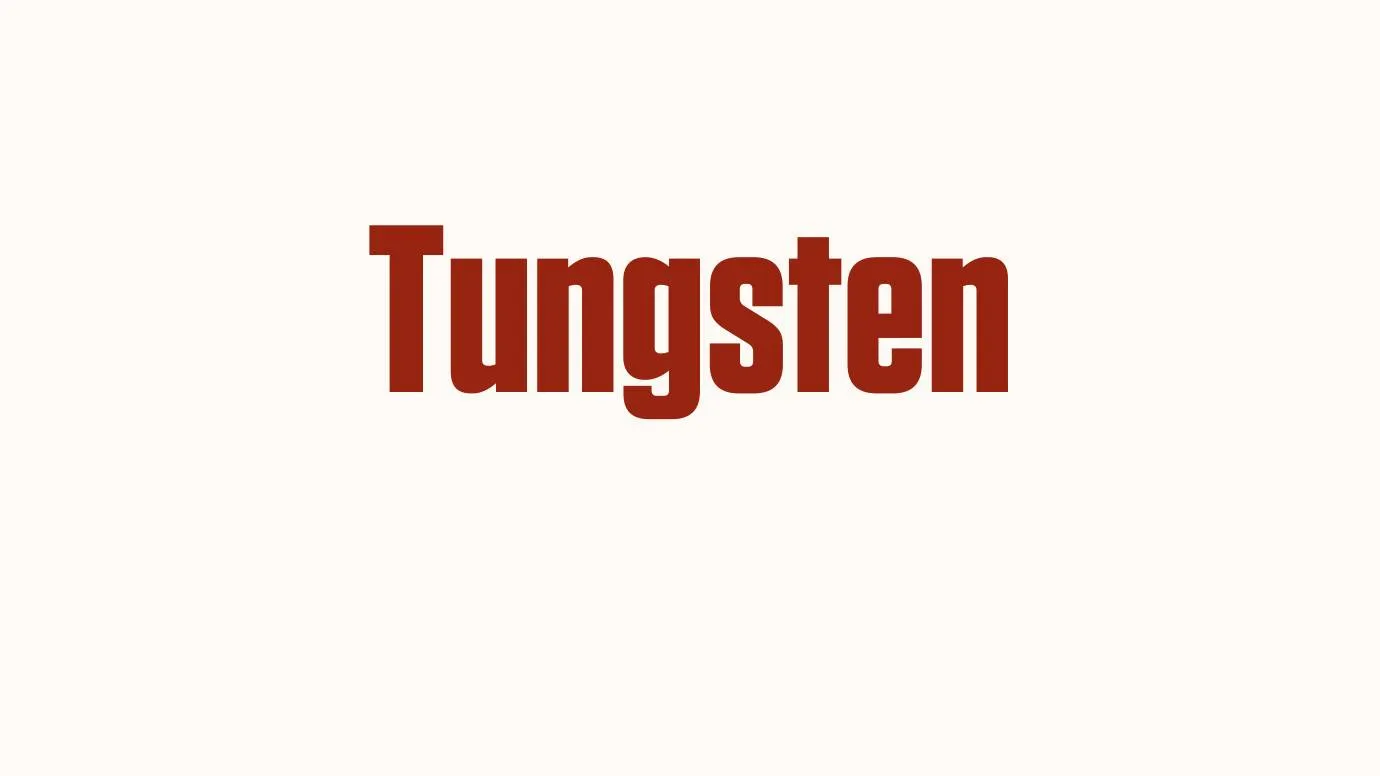
Tungsten is an extraordinary typeface that is known as Tungsten font. This font comes in the category of clean sans-serif typeface family. This font family has been designed by two well-known designers Hoefler and Frere-Jones.
You can find the similarities of this typeface in the MVB Solano Gothic font, Countach font, and Compacta font. Free download this font from our website but you can utilize it for your personal uses.
Tungsten Font Family